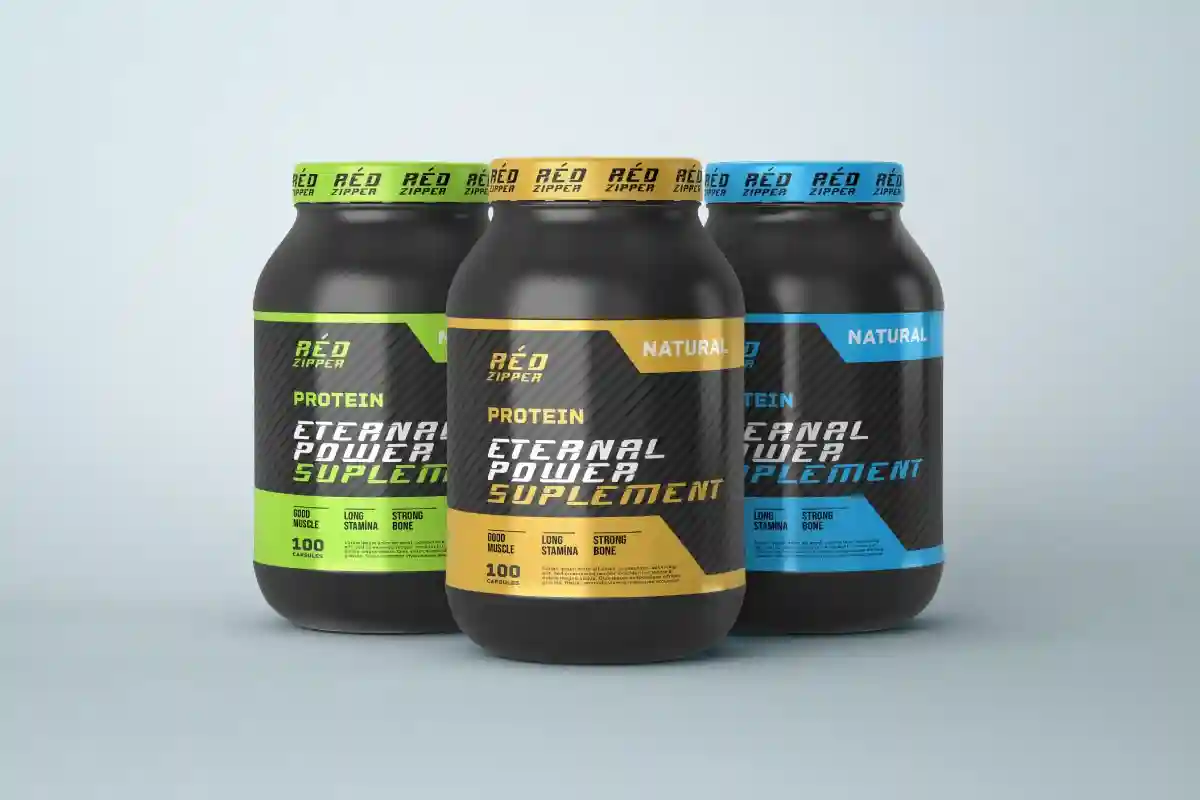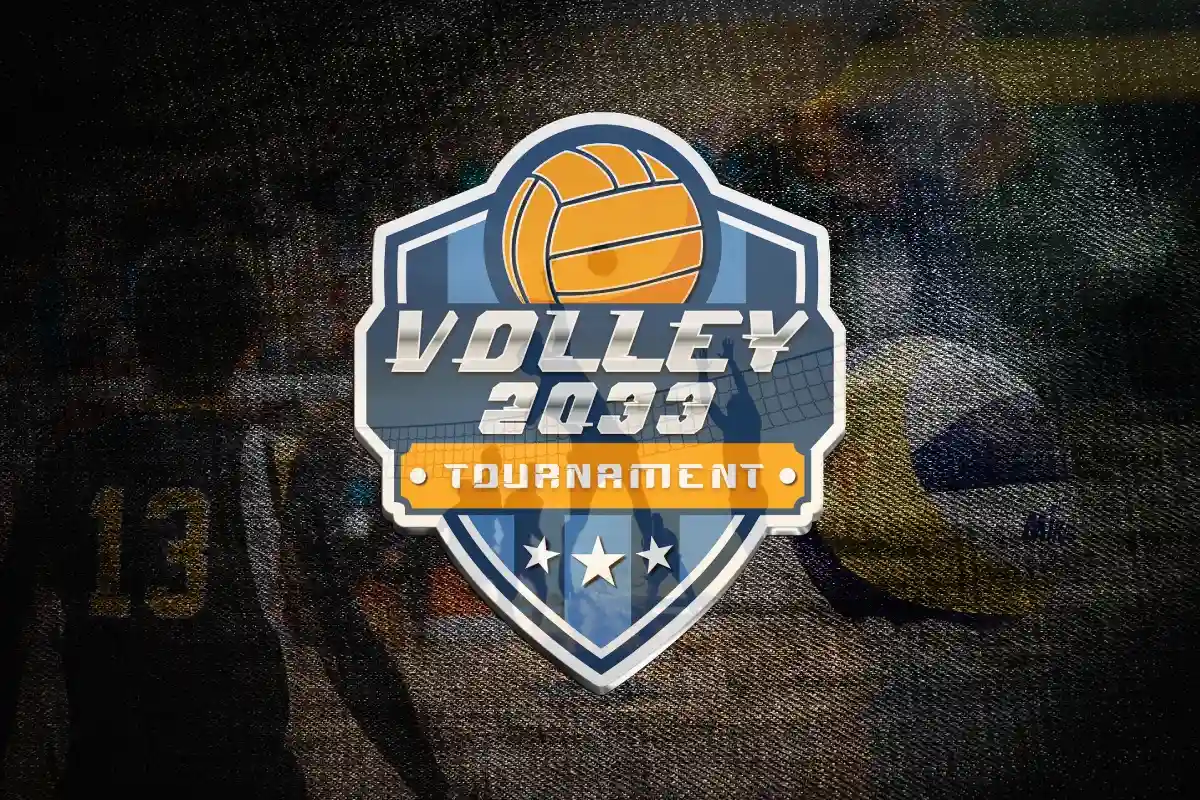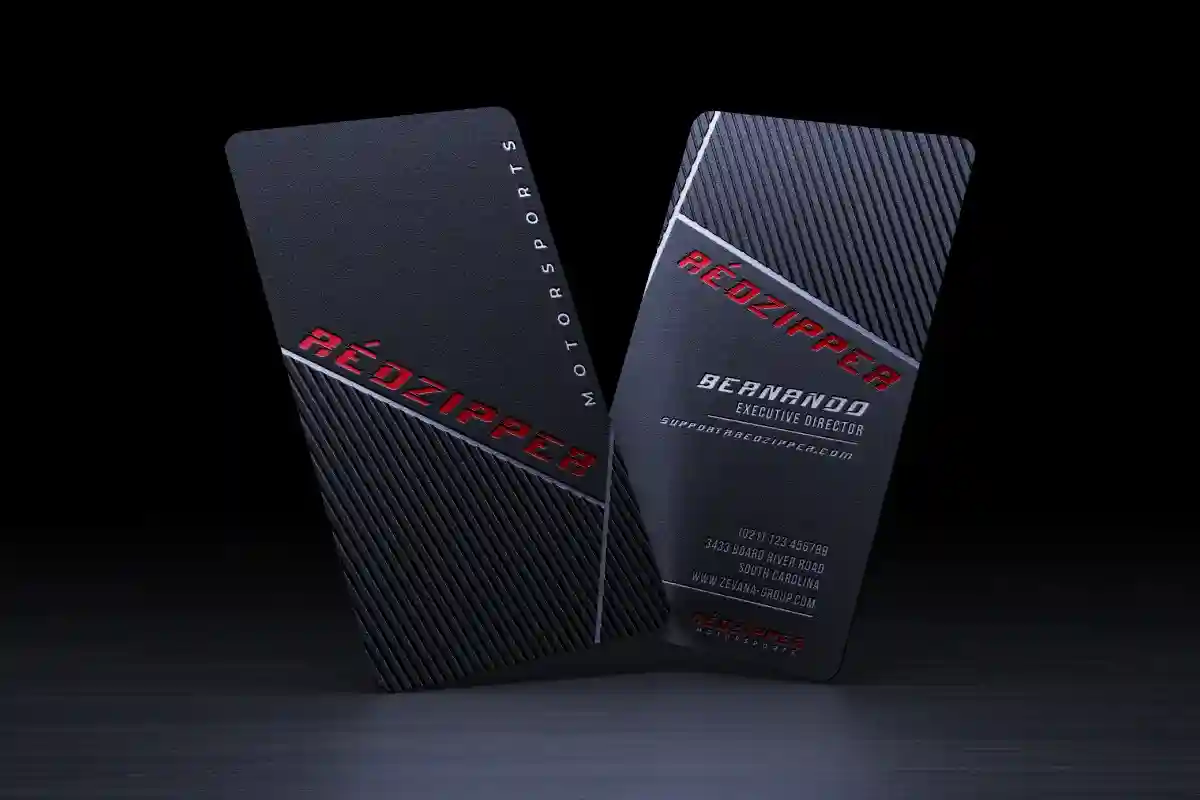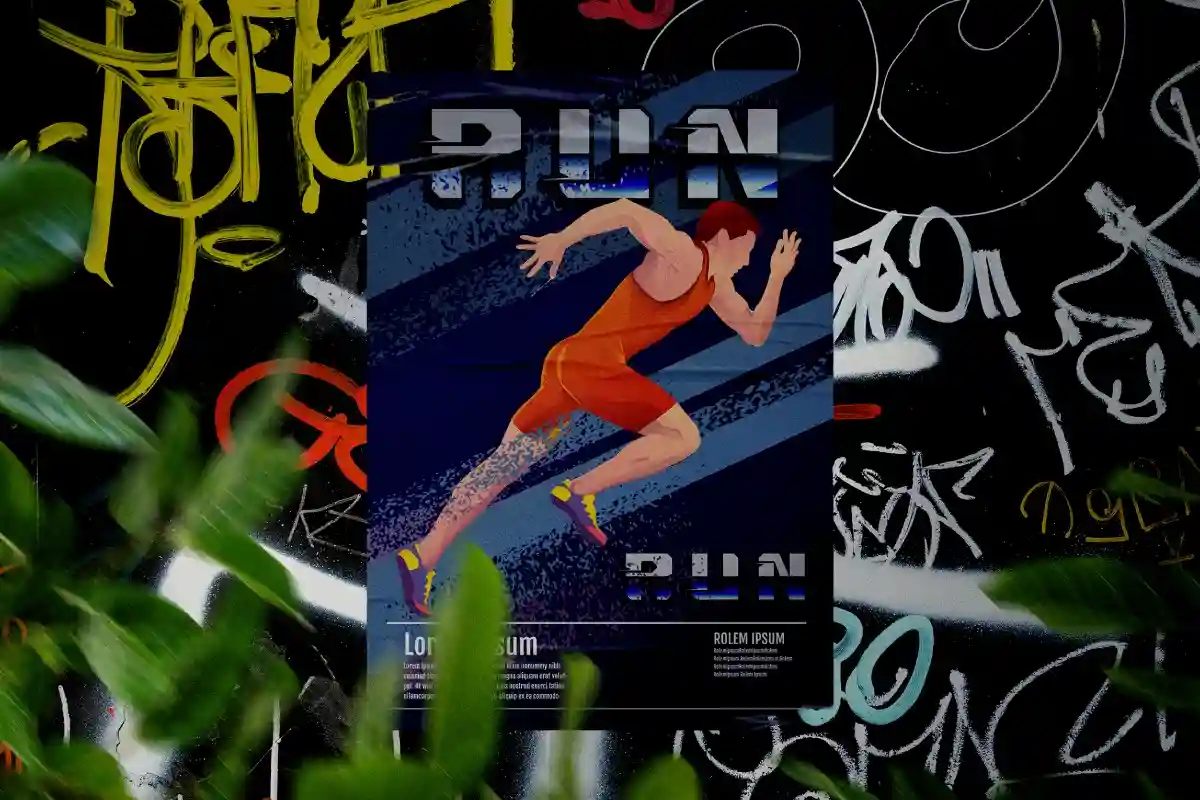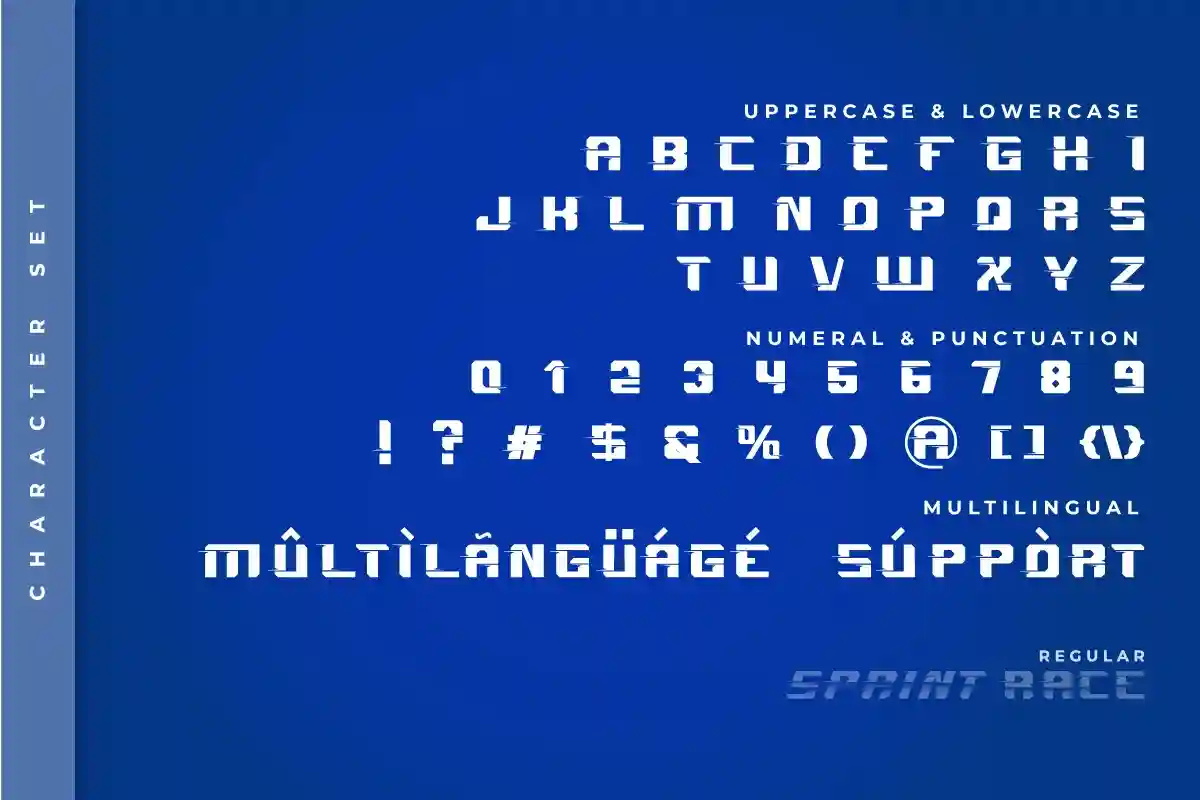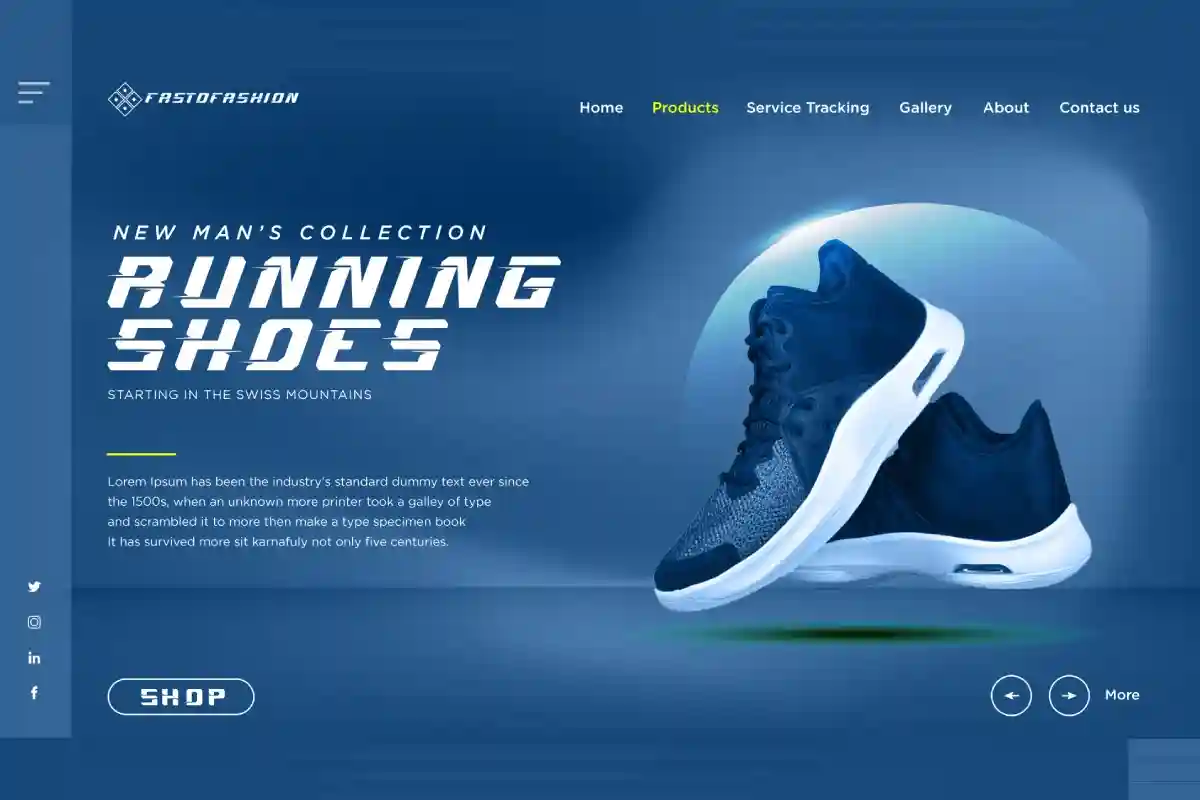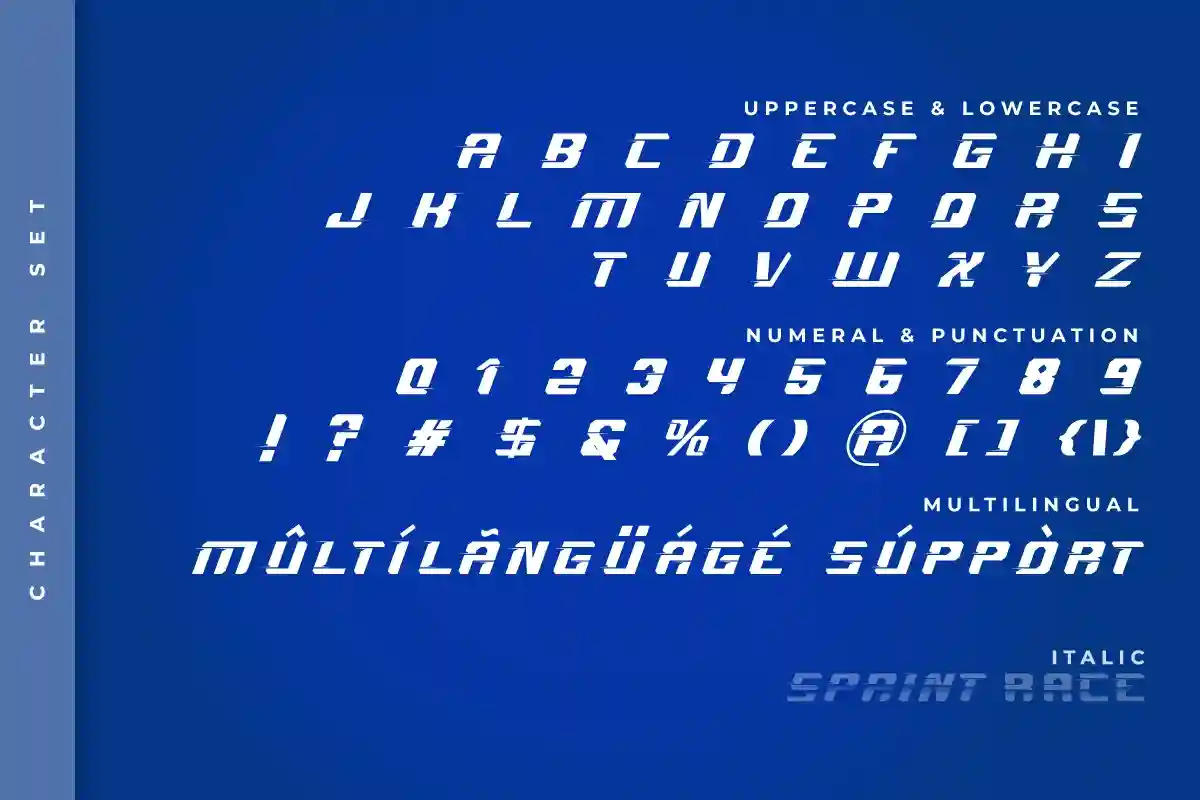
Sprint Race Font is a sans serif display font with racing speed strong style characters. It has a unique style that will bring the special effect to the design. It will works for games, technology, sports, spaceship and any modern things. Sprint Race Font includes full set of Uppercase and Lowercase Basic Characters, Numerals and Punctuation. The font comes with two style options : Regular and Italic. It also comes with ligatures and alternative characters which are perfect for many projects, headlines, logos, poster, title, products, etc.